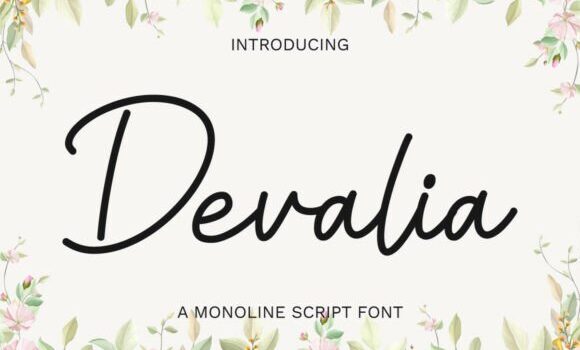
Devalia Font – Free Download Introduction to Devalia Font Devalia is a lovely and timeless handwritten font. 📸 Preview Gallery 6 images 📌 Product Name Devalia Font 👤 Author Nirmala Creative 📂 Category Explore ⬇️ Download Devalia Font FREE Free